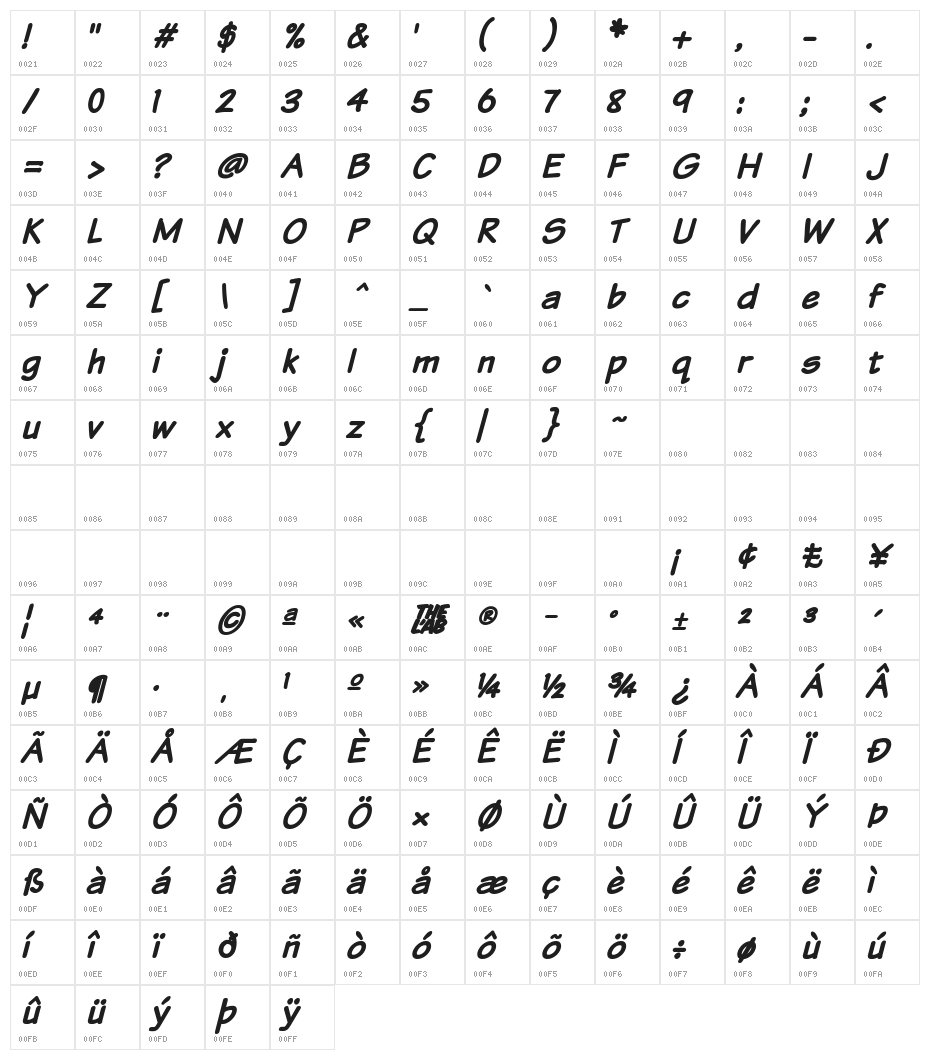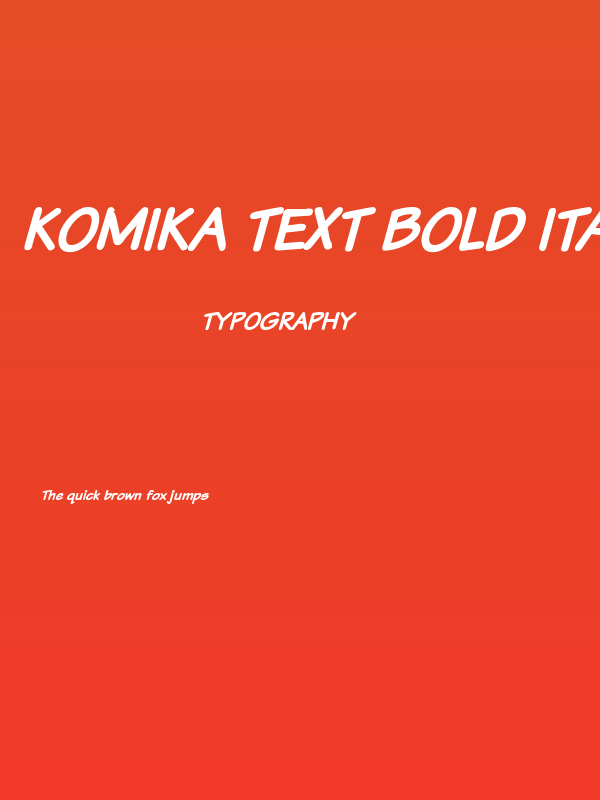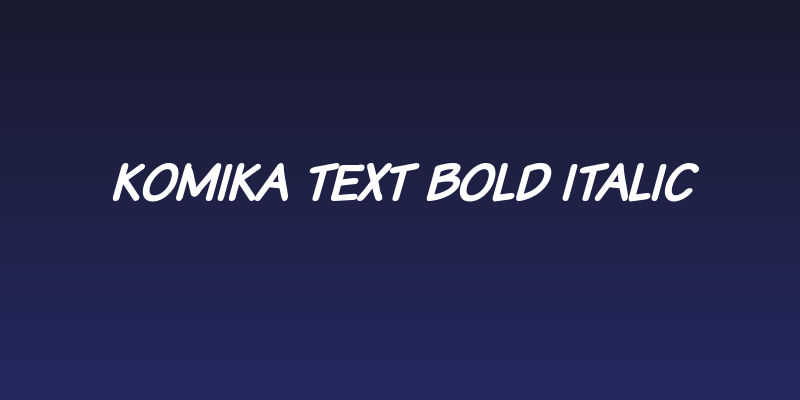
Komika Text Bold Italic Font
Komika Text Bold Italic Description
This font features a playful and bold style with a distinct italic slant, giving it a dynamic and energetic appearance. The characters are rounded and smooth, contributing to a friendly and approachable look. The uppercase and lowercase letters maintain a consistent flow, while the numerals and special characters are designed to match the overall aesthetic. The bold weight ensures visibility and impact, making it suitable for eye-catching designs. The italic angle adds a sense of motion and liveliness, enhancing its appeal for creative projects.